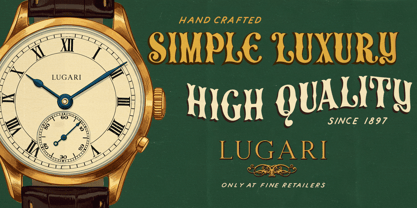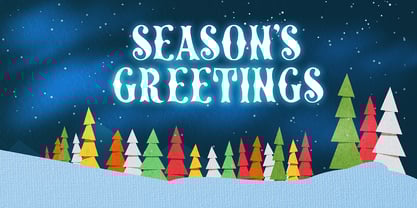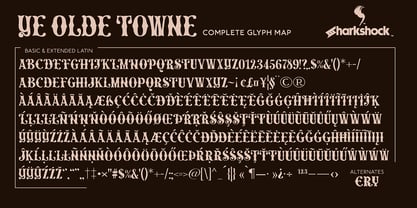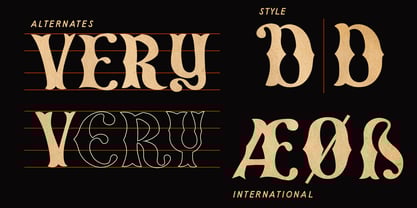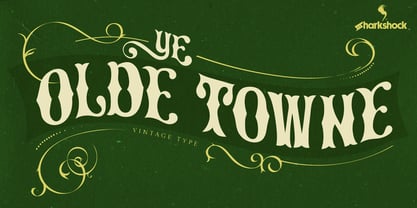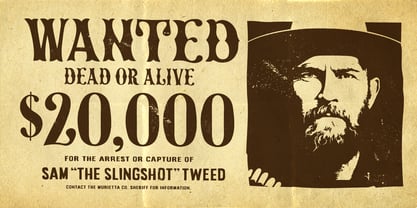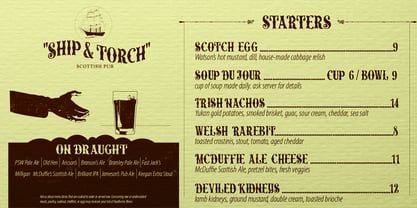
Ye Olde Towne
by Sharkshock
The Ye Olde Towne Font Family was designed by Dennis Ludlow and published by Sharkshock. Ye Olde Towne contains 1 styles. More about this family
Ye Olde Towne is an all caps display font that ushers in warm feelings of nostalgia. Its vintage theme was inspired by products, posters, and advertisements that dominated the decorative arts movement of the the early 1900s. The letterforms are highly stylized featuring undulating strokes, stubby terminals, and fishtail serifs. Both spacing and glyph height fluctuate to create a loose, informal appearance. This gives it a hand crafted look and a touch of authenticity. Use it for a poster, publication, or a festive holiday greeting. Ye Olde Towne is equipped with Basic and extended Latin, punctuation, kerning, and a few alternates. Please check the glyph map for all supported characters.